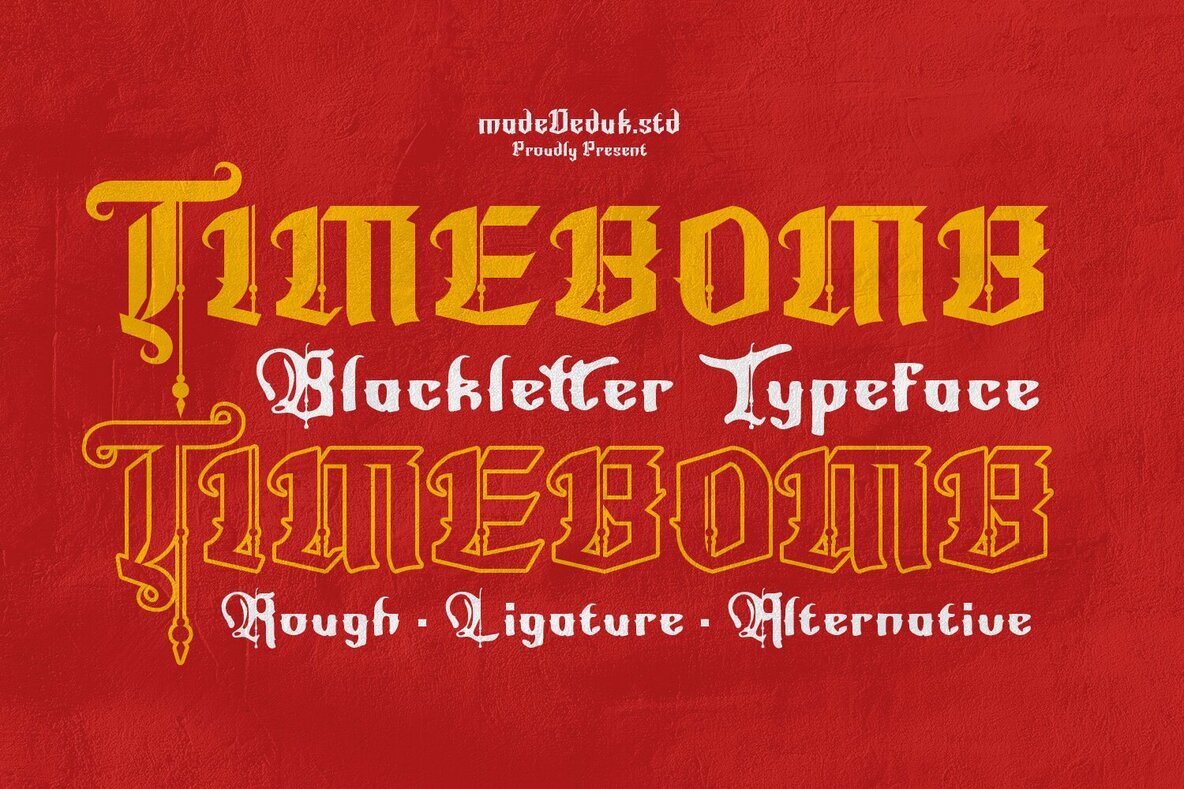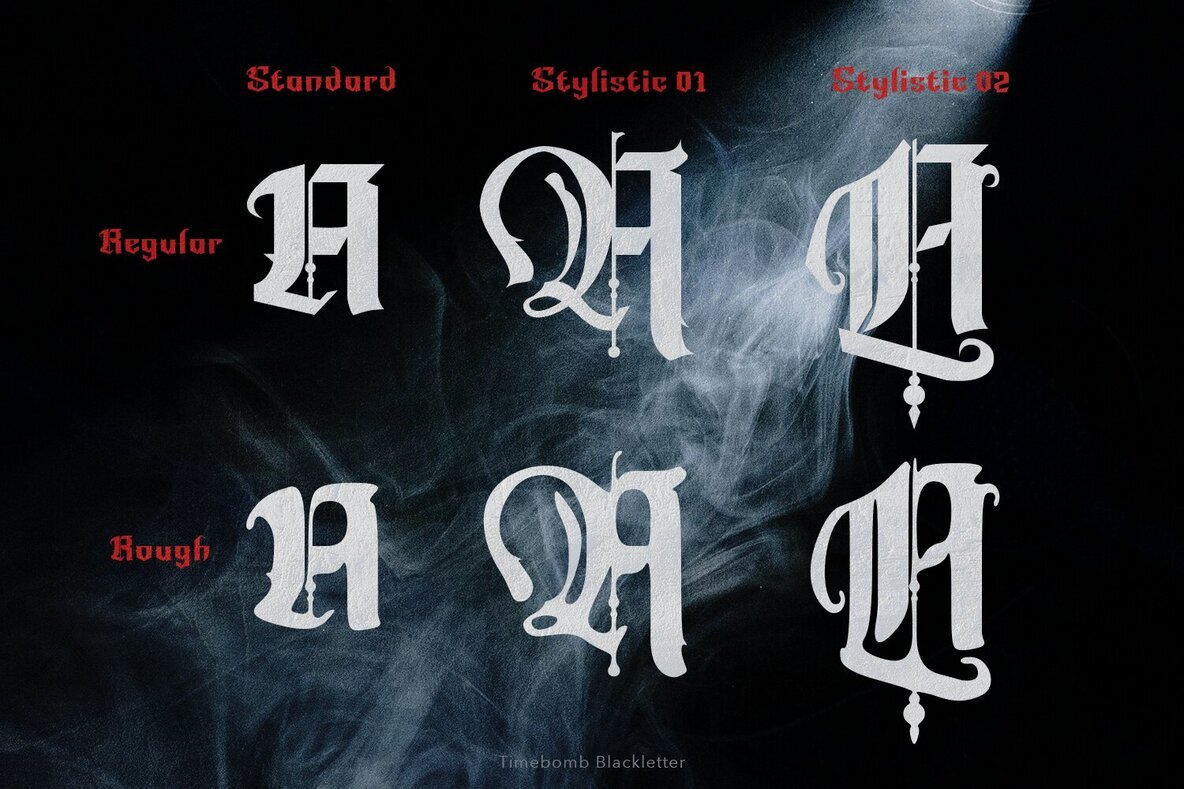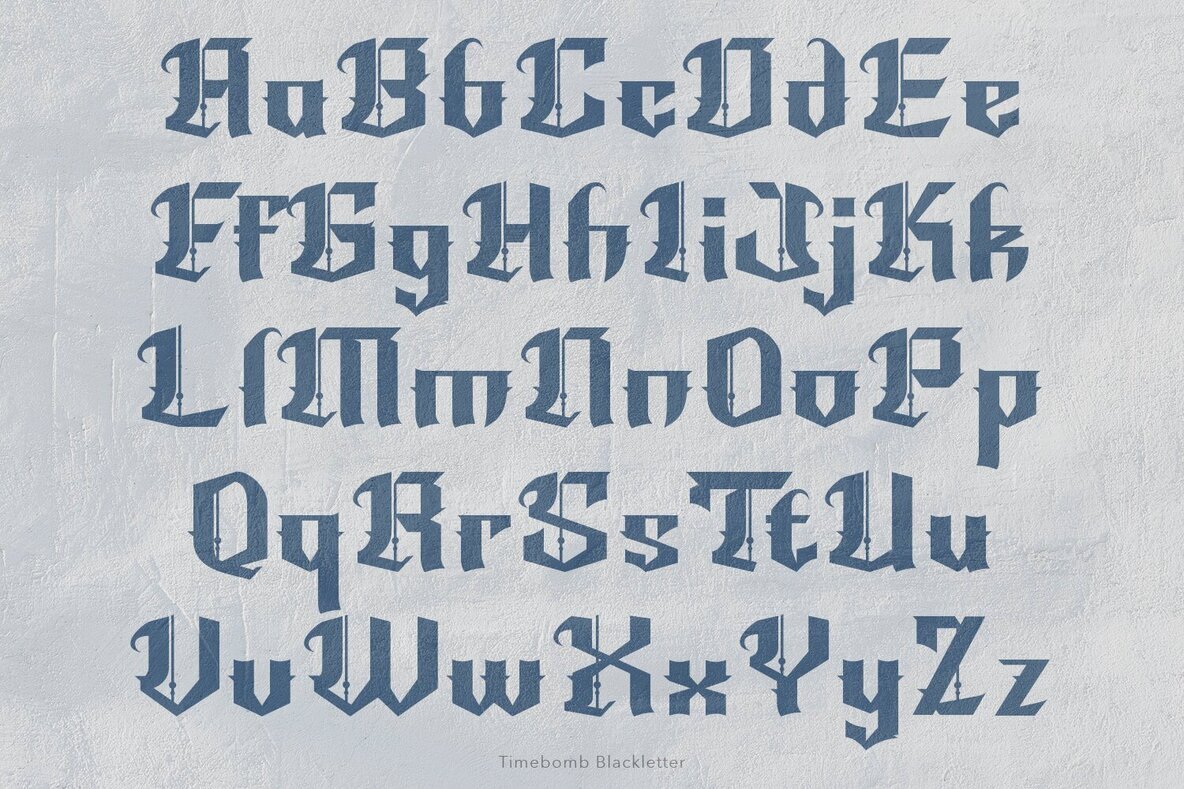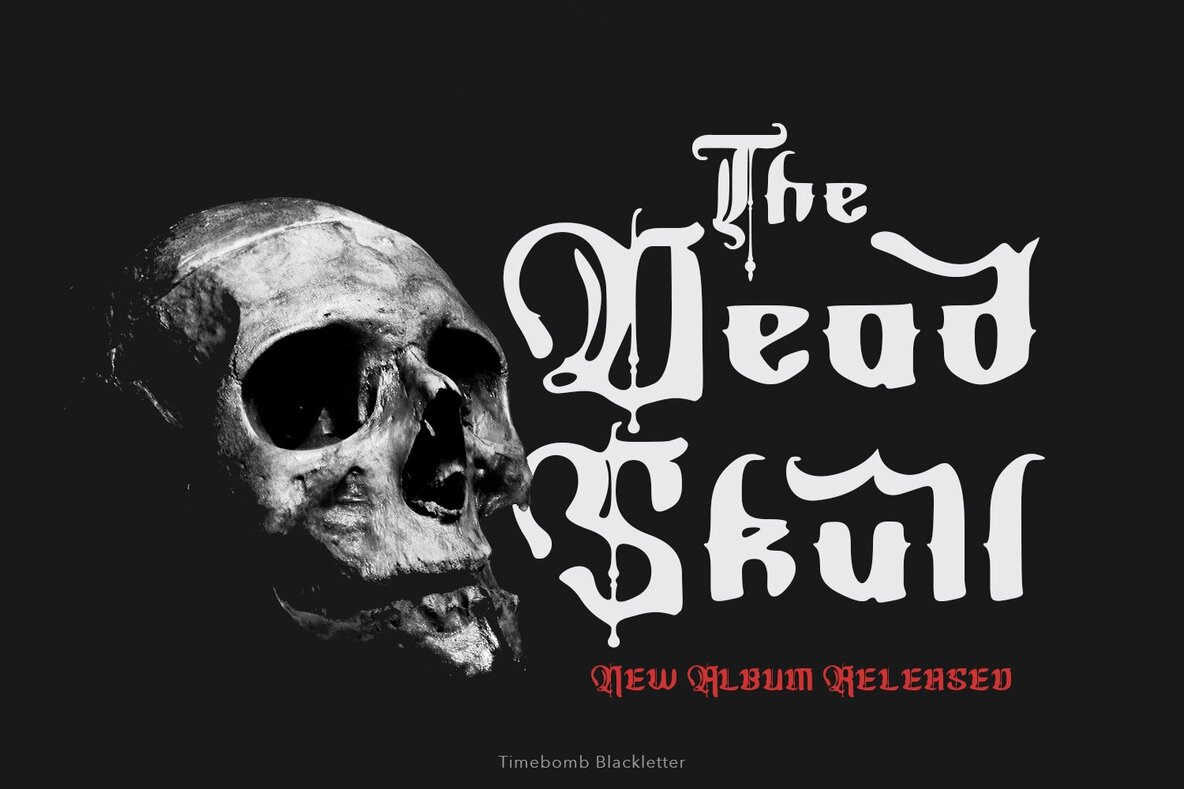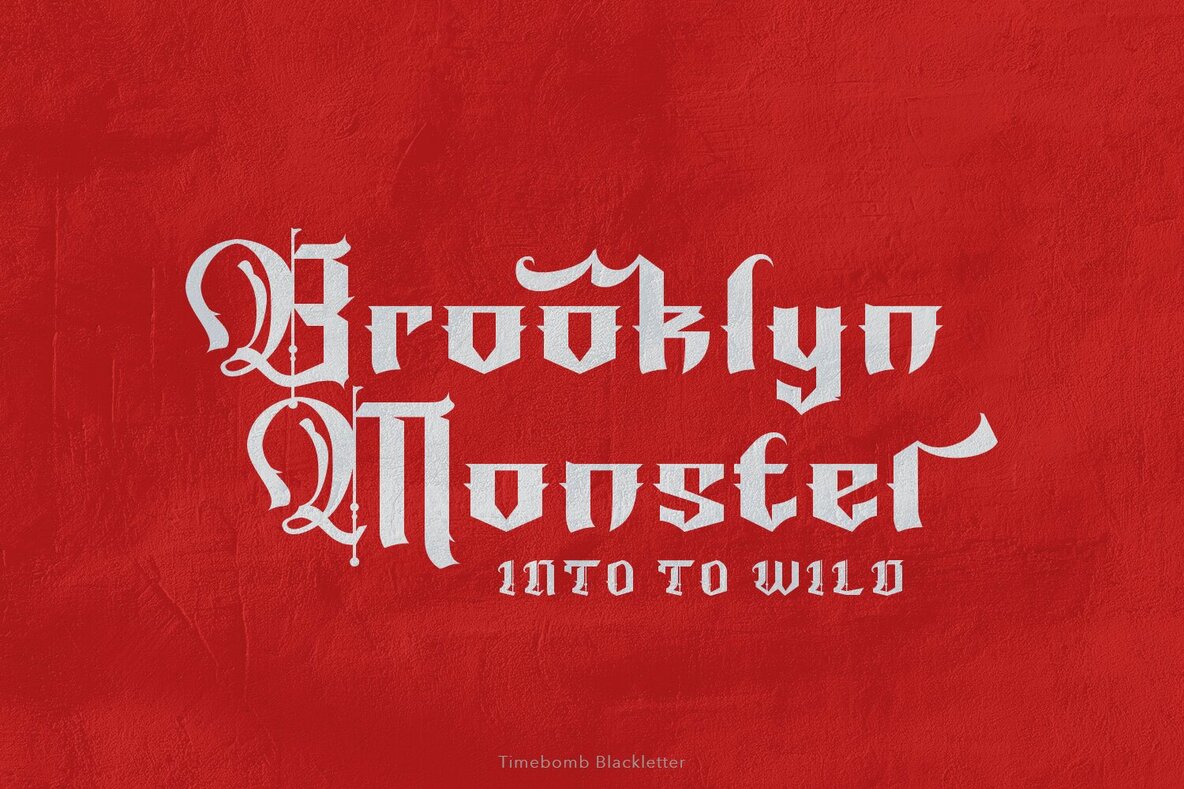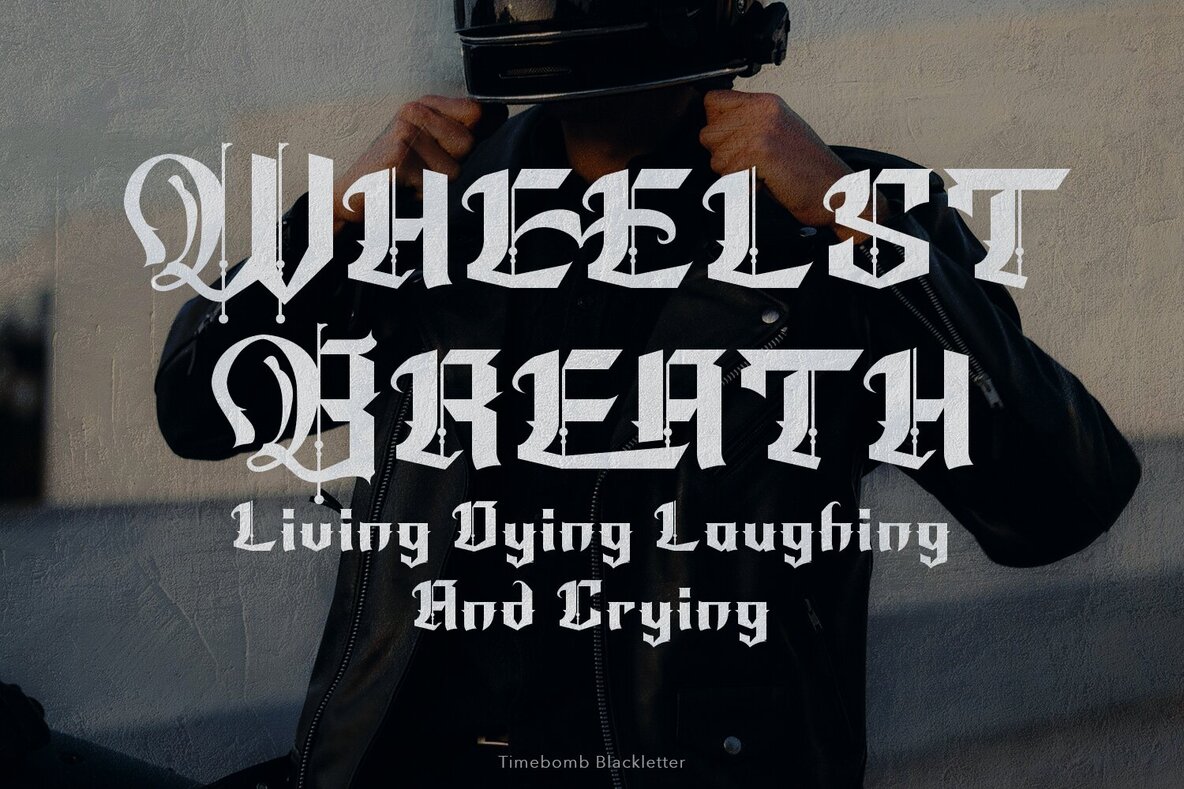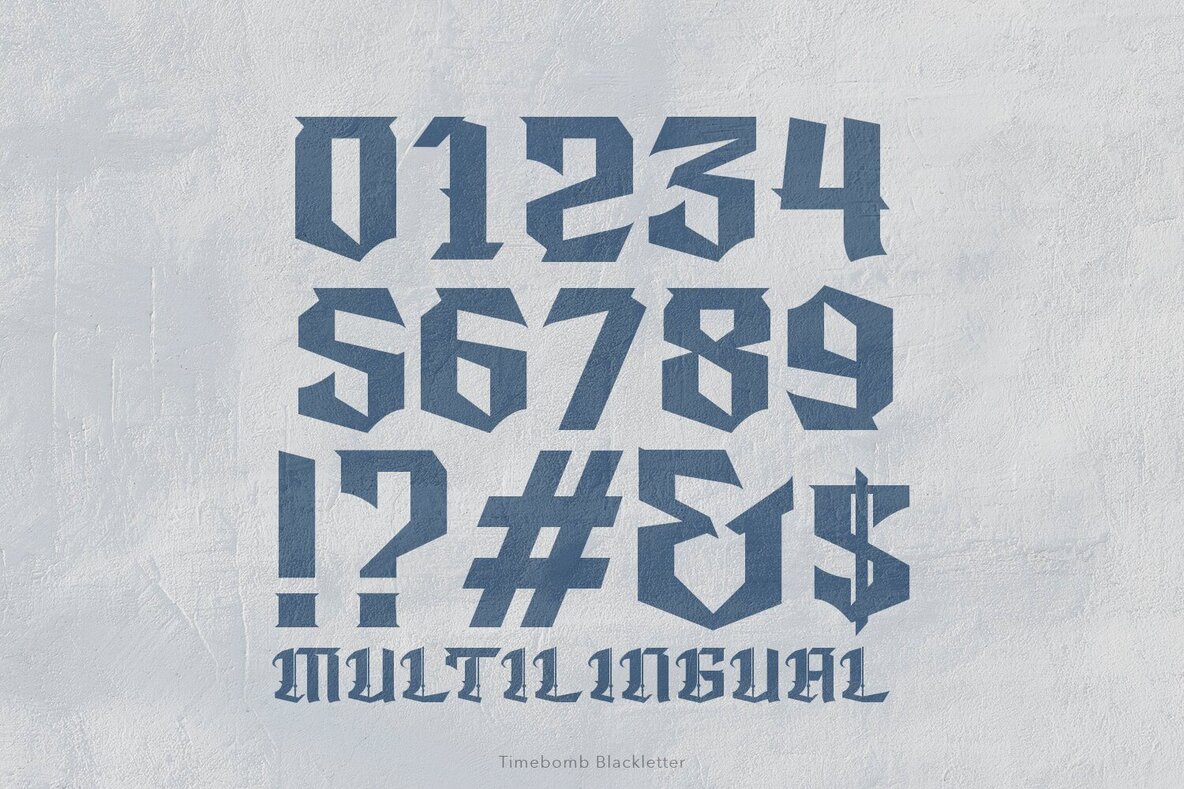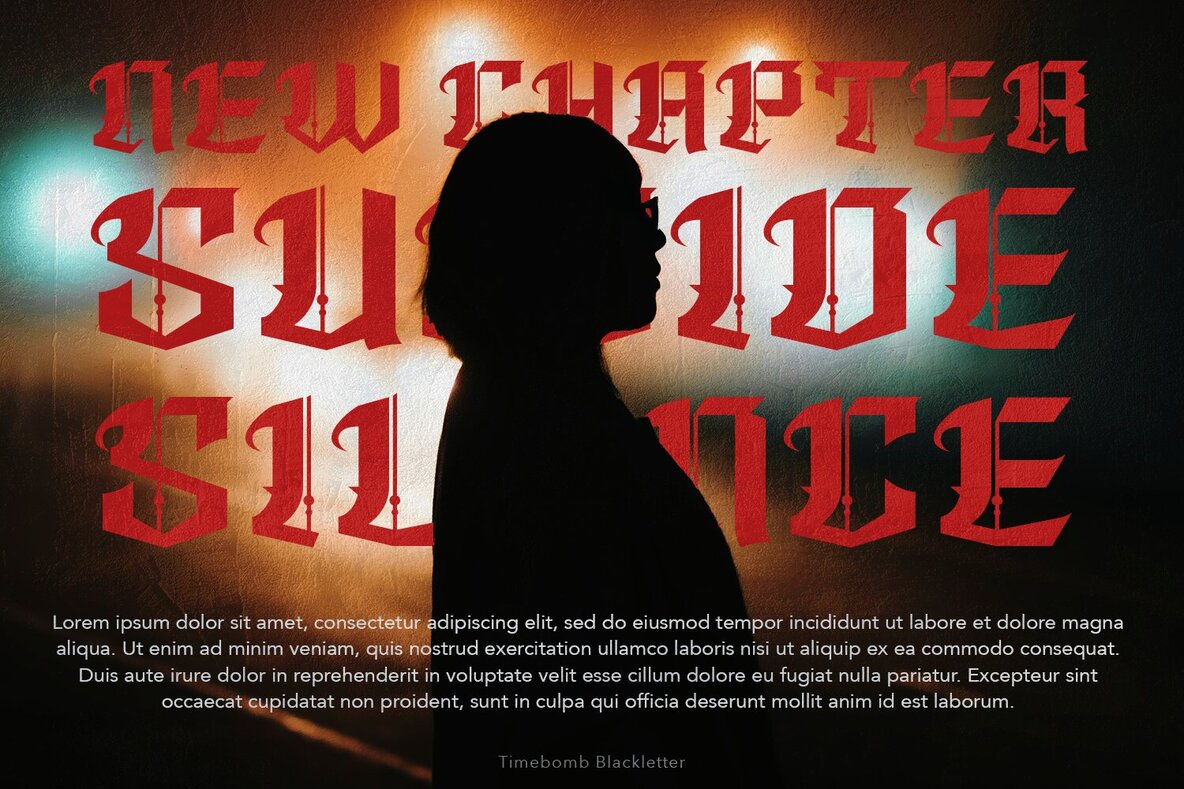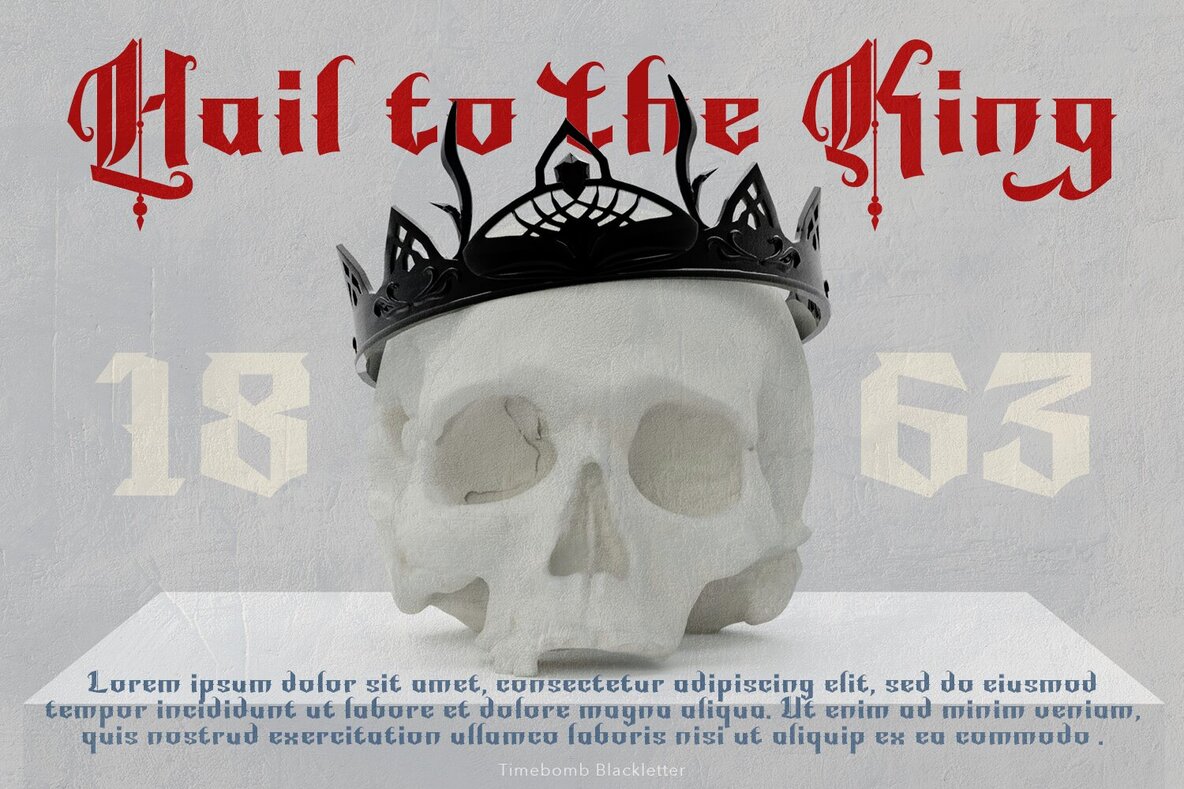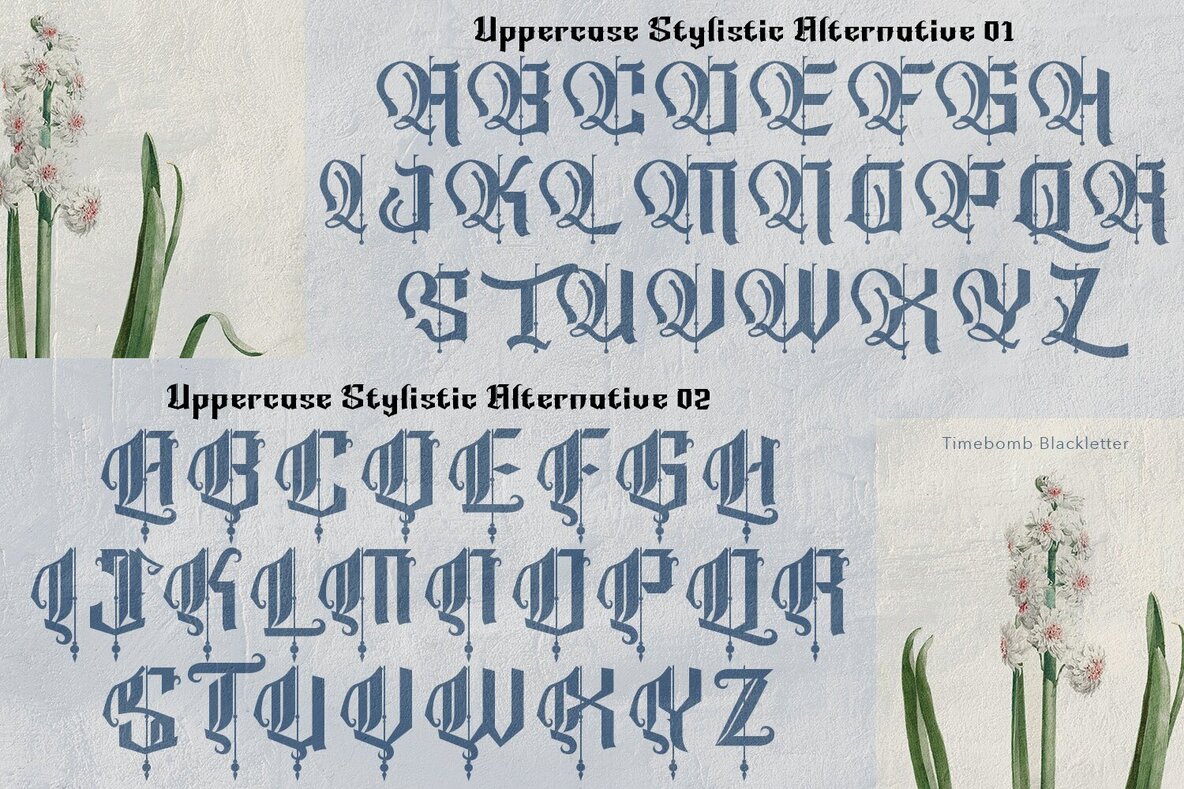
Timebomb Font
Timebomb offers a contemporary take on the bold blackletter style, featuring an array of stylistic alternates that add a distinctive edge. This typeface is available in both regular and rough versions, making it a versatile choice for a variety of creative applications.Timebomb: A Dynamic Blackletter Font